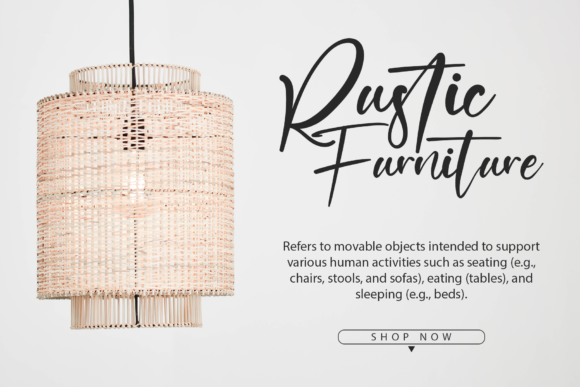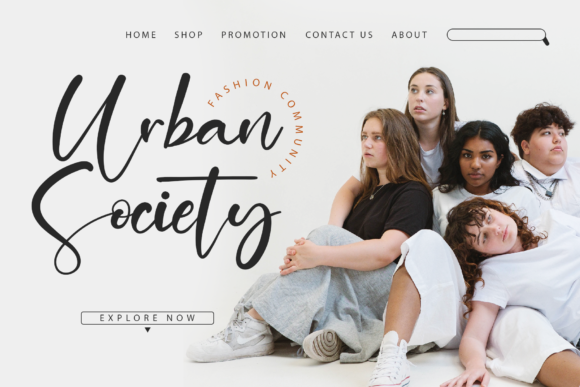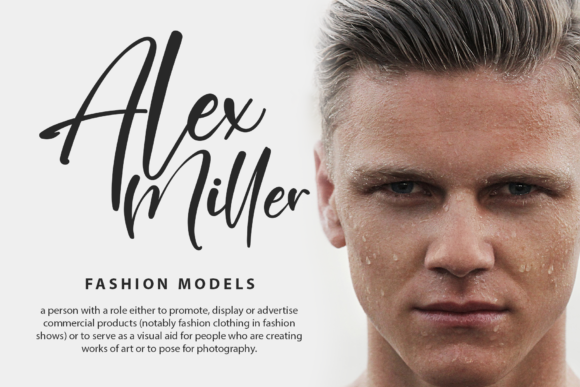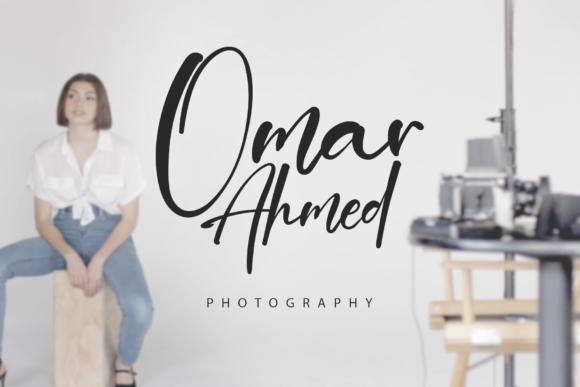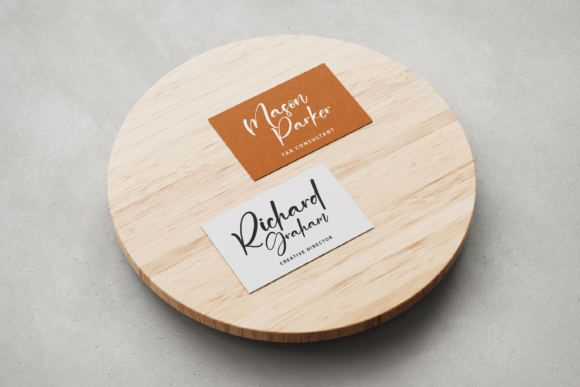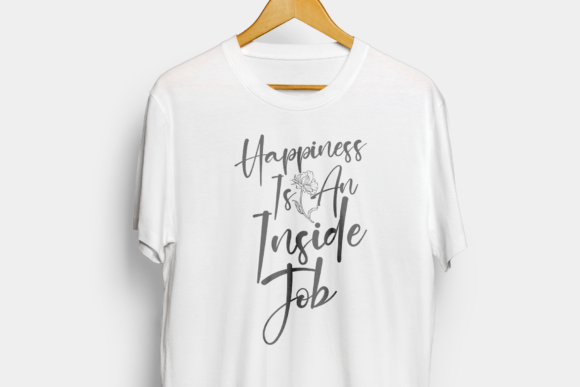
Australia Font: The Perfect Handwritten Font for Creative Designs
Are you a designer or crafter looking for a unique and charming font to bring your creative ideas to life? Look no further than the Australia Font! This beautiful handwritten font is perfect for adding a personal touch to your designs, and its flowing style and rounded characters make it ideal for conveying your message in a warm and inviting way.
What is Australia Font?
Australia Font is a carefully crafted handwritten font that is designed to add a touch of personality to your designs. With its beautifully rounded characters and flowing style, this font is perfect for creating eye-catching headings, titles, and text that will capture the attention of your audience. Whether you’re working on a creative project, crafting a message, or simply want to add some flair to your text, Australia Font is the perfect choice.
Key Features of Australia Font
So, what makes Australia Font so special? Here are just a few of its key features:
- Handwritten style: Australia Font has a charming, handwritten style that adds a personal touch to your designs.
- Flowing style: The font’s flowing style makes it perfect for creating beautiful, cursive-style text that will add a touch of elegance to your designs.
- Rounded characters: The font’s rounded characters are carefully crafted to be both beautiful and easy to read.
- Versatile: Australia Font is versatile and can be used for a wide range of creative projects, from crafting and scrapbooking to graphic design and digital art.
Why Choose Australia Font?
So, why choose Australia Font for your creative projects? Here are just a few reasons:
- Unique and eye-catching: Australia Font is a unique and eye-catching font that will add a touch of personality to your designs.
- Easy to read: Despite its flowing style, Australia Font is easy to read, making it perfect for creating text that needs to be understood.
- Customizable: Australia Font can be customized to fit your needs, making it perfect for creating unique and personalized designs.
- High-quality: Australia Font is a high-quality font that is designed to produce beautiful results.
How to Use Australia Font
Using Australia Font is easy! Here are a few tips for getting started:
- Pair it with other fonts: Australia Font pairs well with other fonts, making it easy to create beautiful and unique text combinations.
- Experiment with colors: Australia Font looks great in a wide range of colors, so don’t be afraid to experiment and find the perfect hue for your design.
- Use it for headings and titles: Australia Font is perfect for creating eye-catching headings and titles that will capture the attention of your audience.
- Try it for digital and print projects: Australia Font is versatile and can be used for both digital and print projects.
In conclusion, Australia Font is a charming handwritten font that is perfect for designers and crafters looking to add a personal touch to their creative projects. With its flowing style, beautifully rounded characters, and versatile nature, this font is ideal for creating eye-catching text that will capture the attention of your audience. So why not give Australia Font a try today and see the difference it can make in your designs?